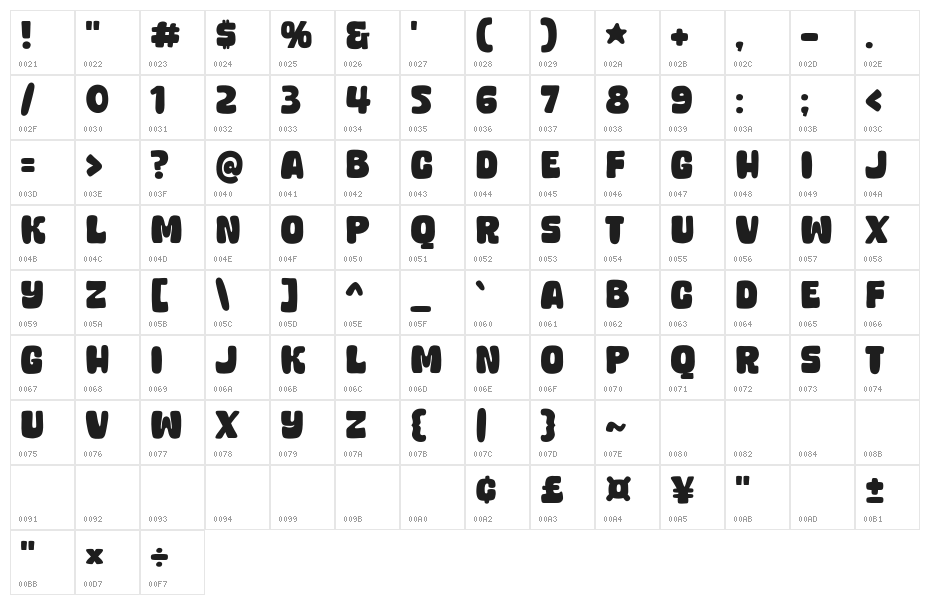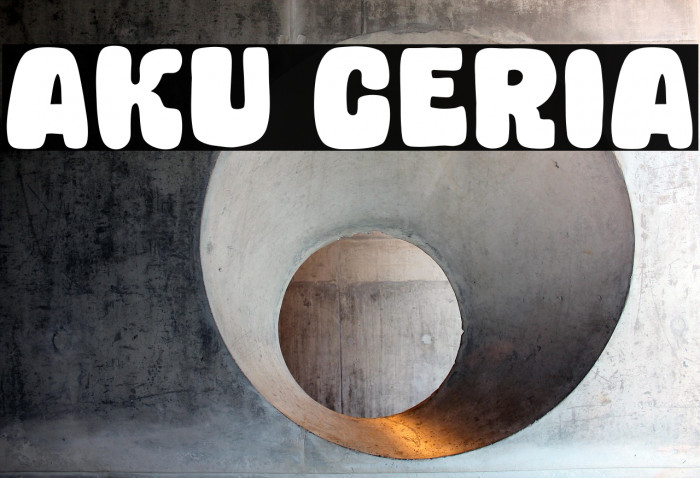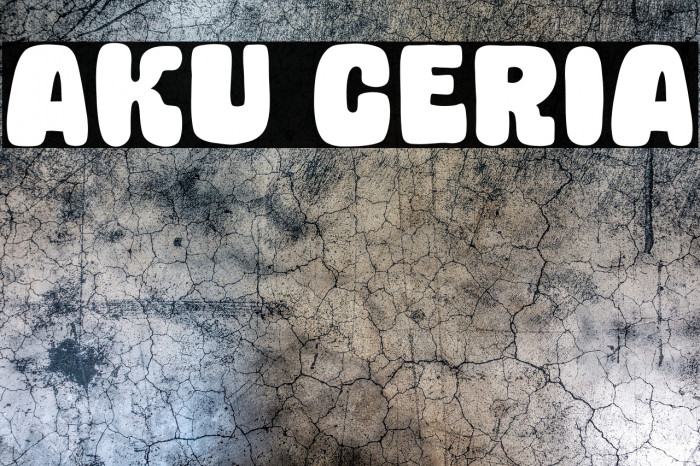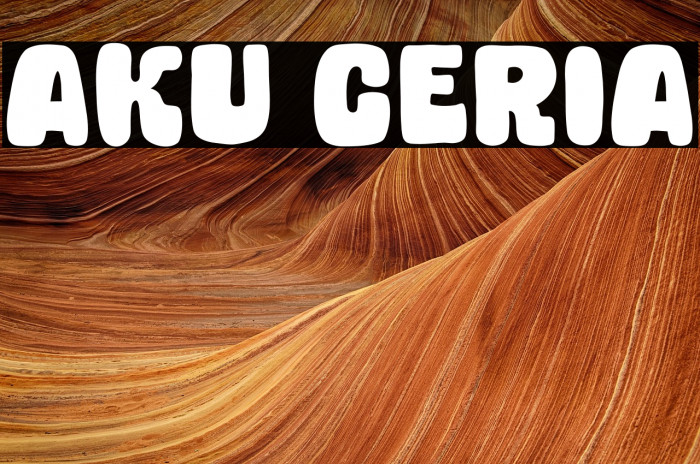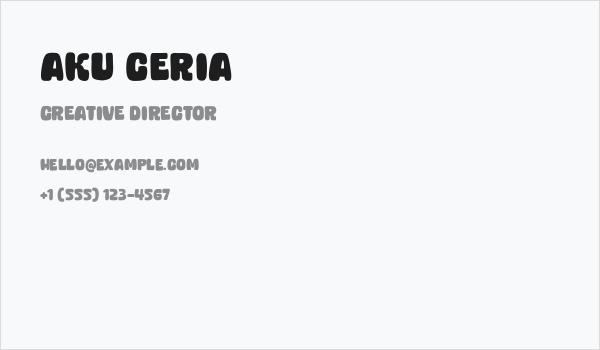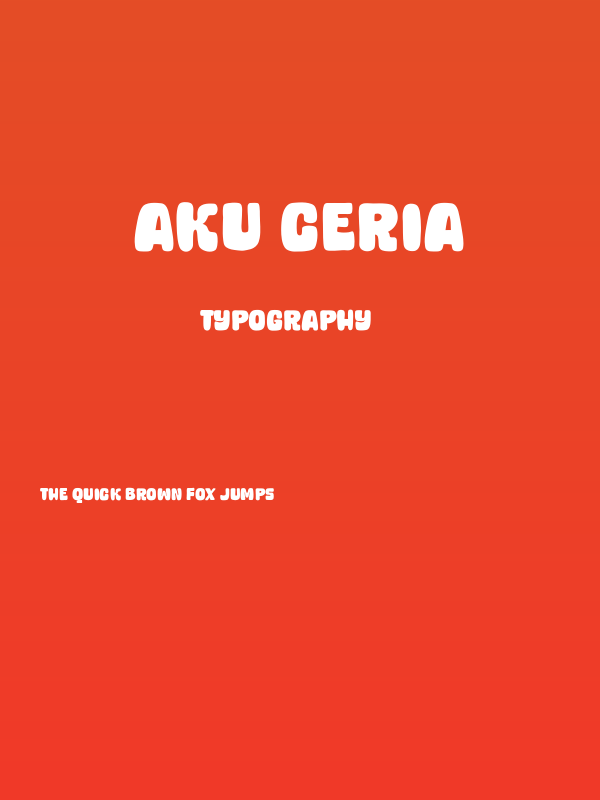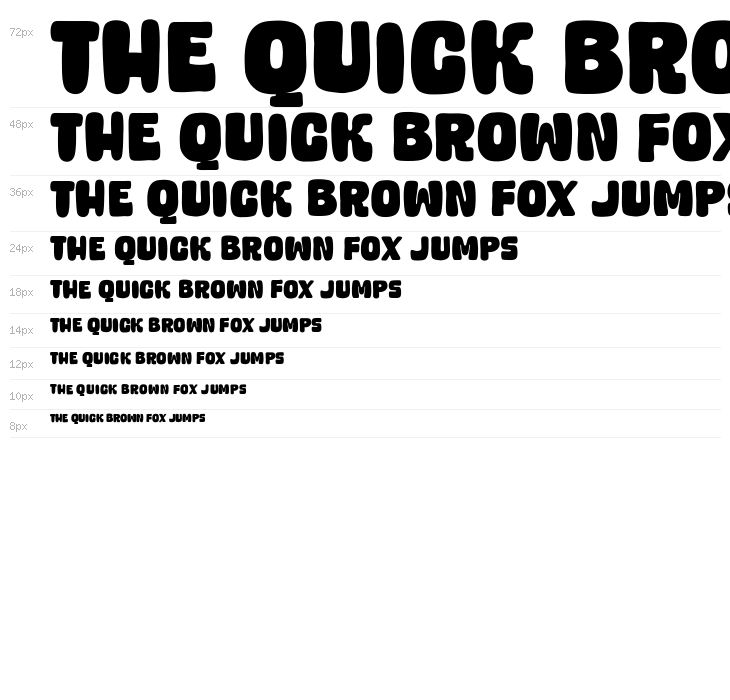
Aku Ceria Font
Aku Ceria Description
This font features a bold and playful design with rounded edges and a bubbly appearance. The characters are thick and uniform, giving a sense of fun and approachability. The style is consistent across uppercase, lowercase, numbers, and special characters, maintaining a cohesive look. The font's rounded forms and heavy weight make it stand out, ideal for capturing attention. Its playful nature is suitable for projects that require a friendly and informal tone.
| Proposed Projects | Ideal for children's books, playful branding, party invitations, and casual posters. |